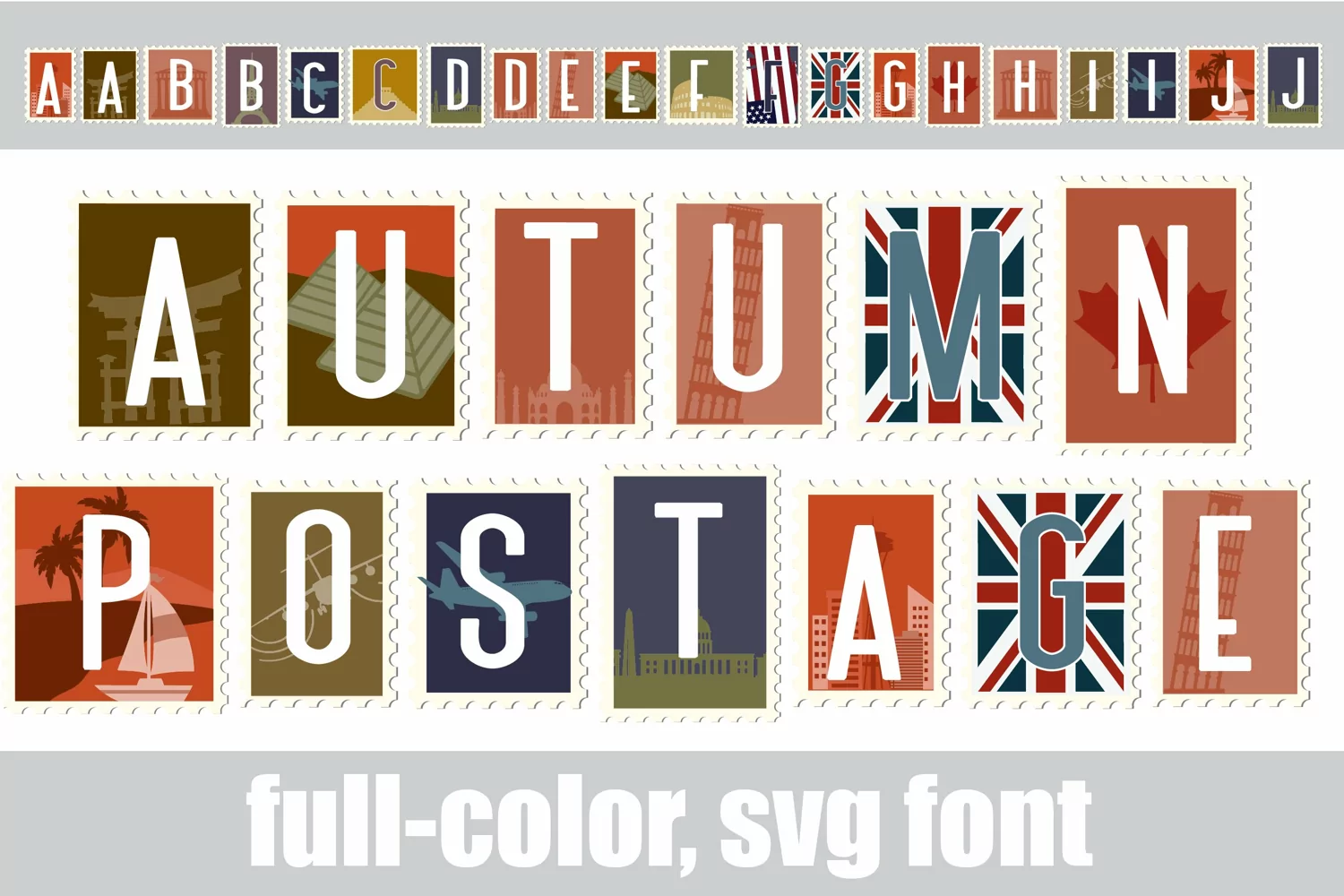
Autumn Postage
This full-color font features a postage style font in an autumn color palette.This font works best for titles, displays, posters and more. Please note color fonts will show as black in non compatible programs. This font type is compatible with Silhouette Studio.